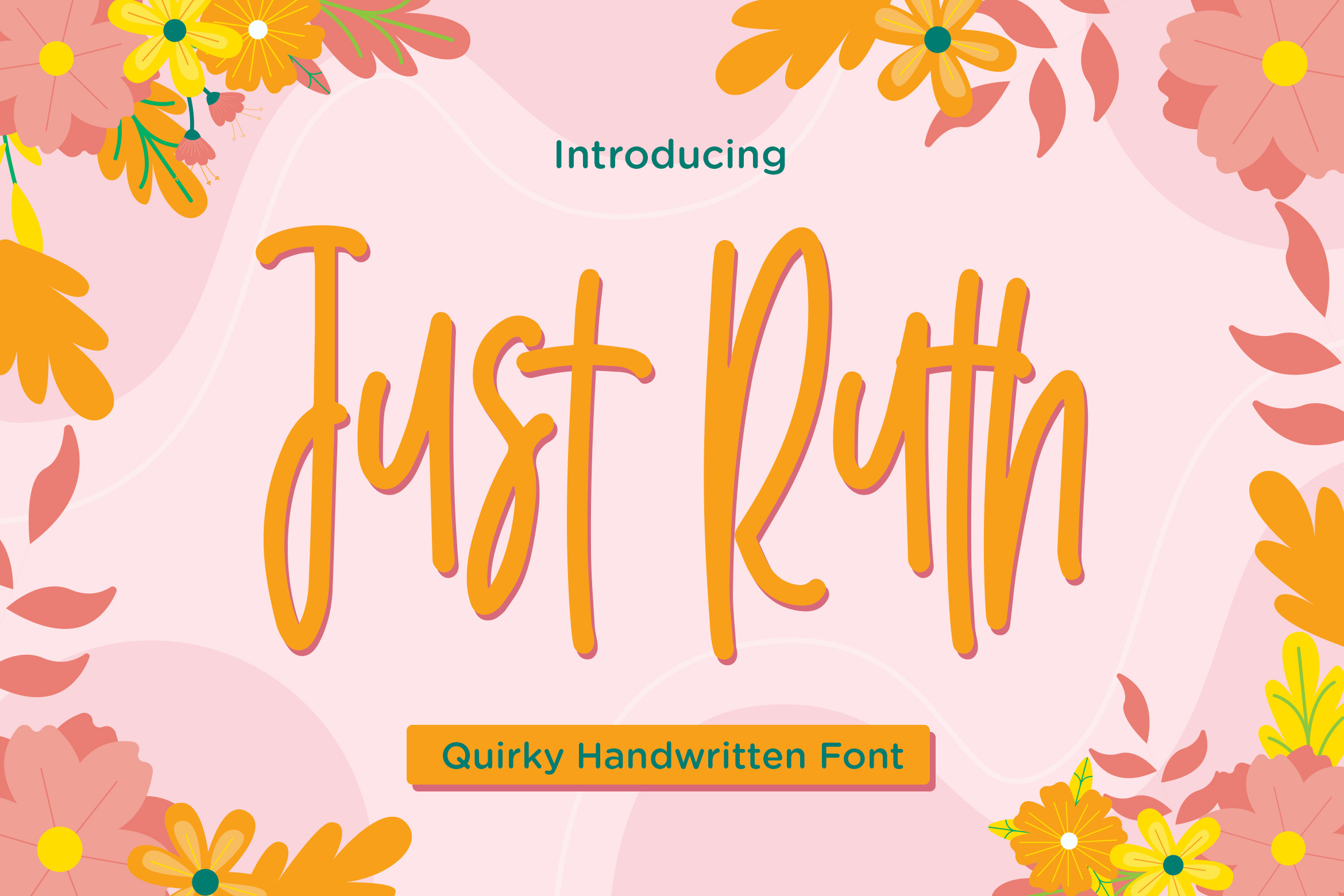
Just Ruth - Quirky Handwritten Font
Just Ruth is a sweet and quirky handwritten font. Dainty and joyful, this font will be ideal for writing neat cards, album cover, quotes or any other design that may need a personalized touch!